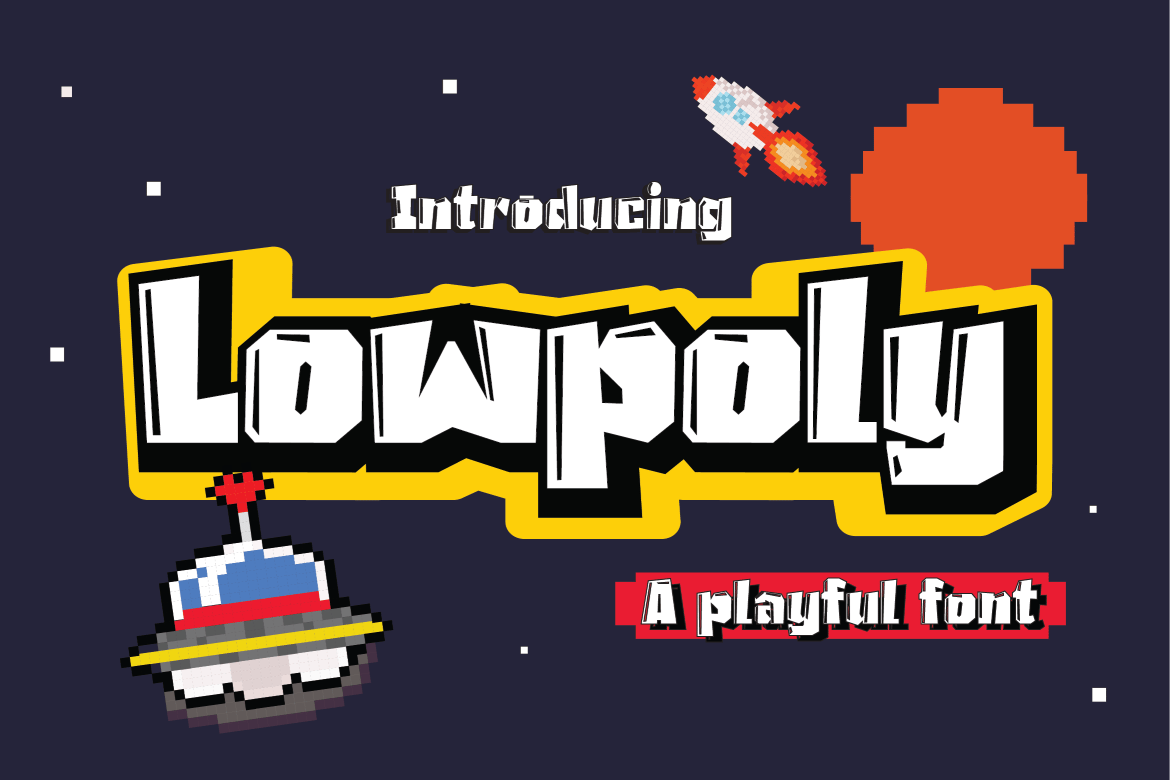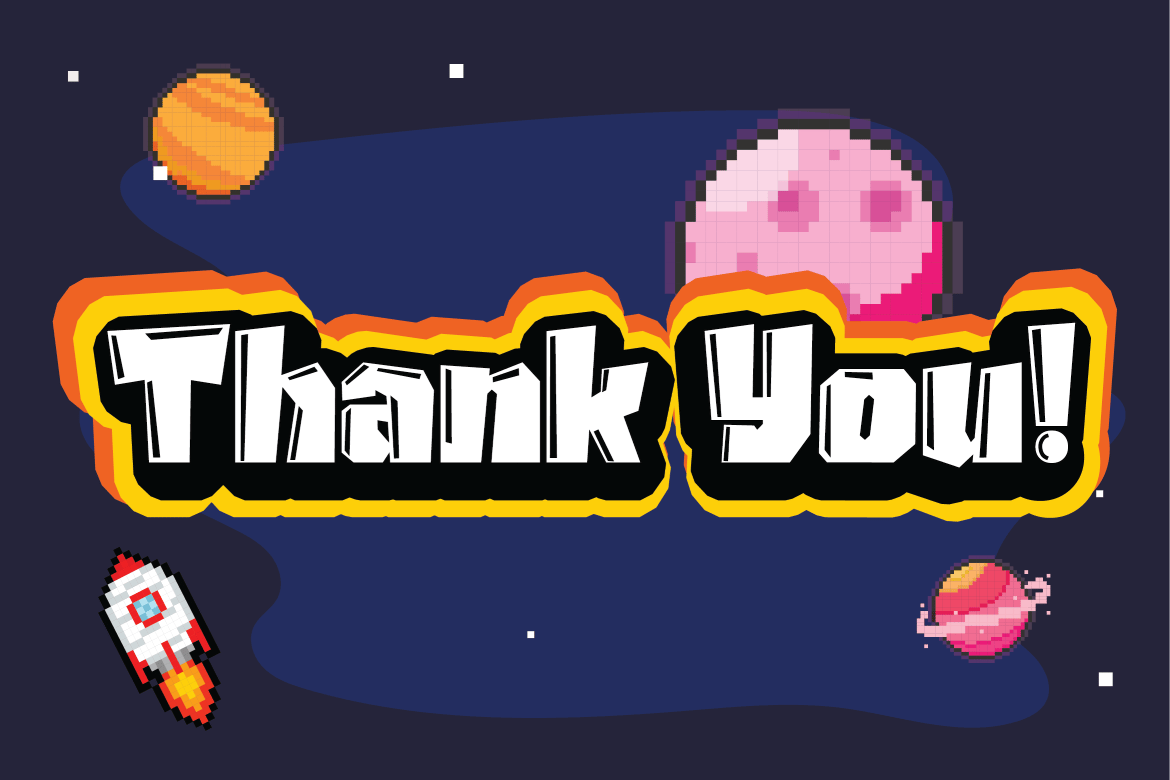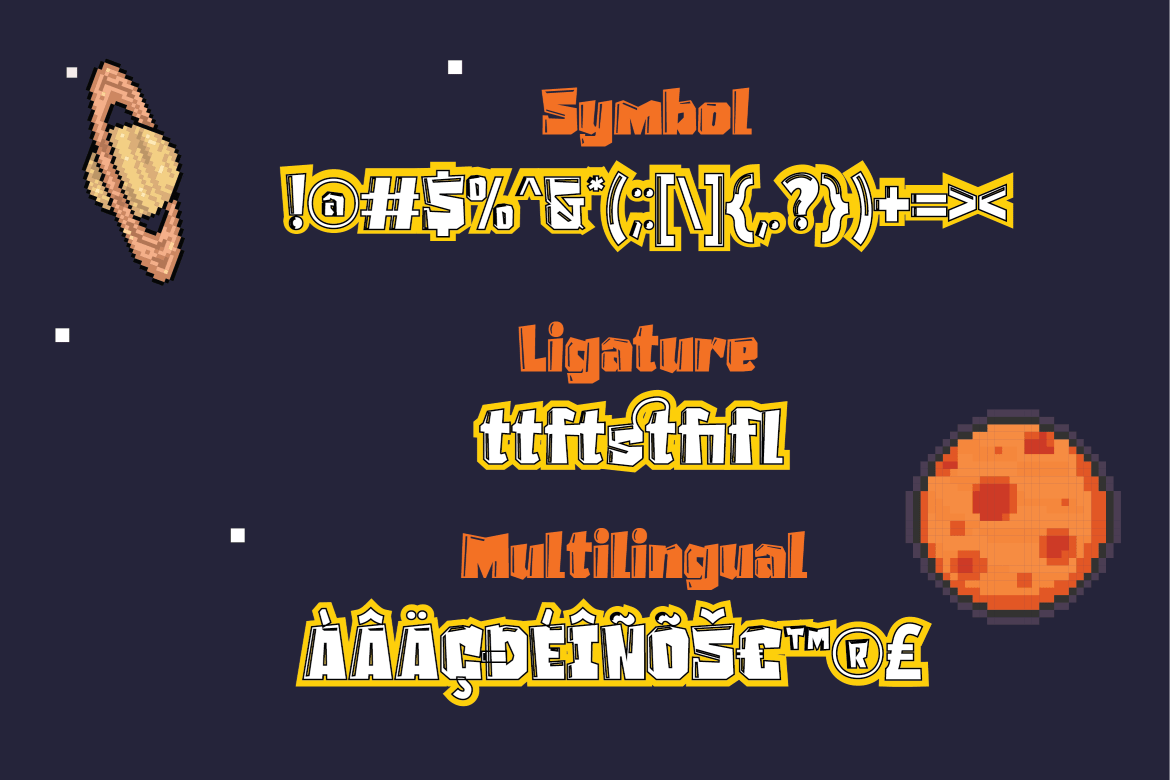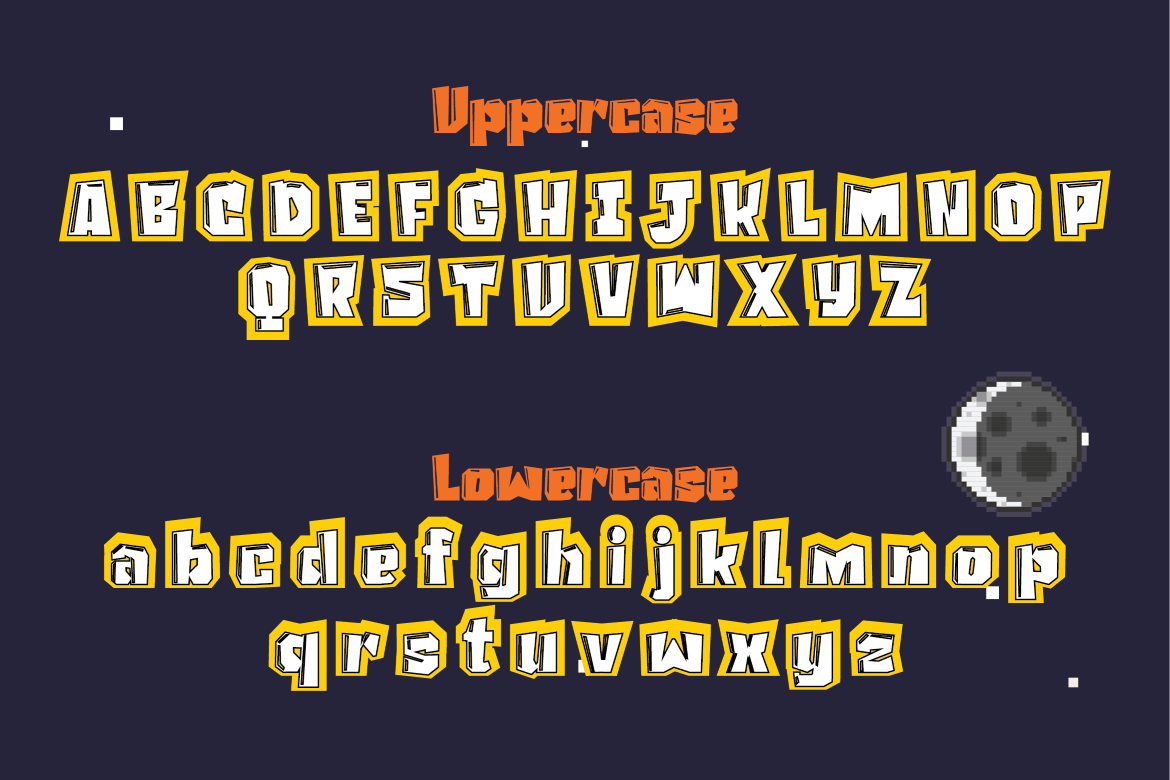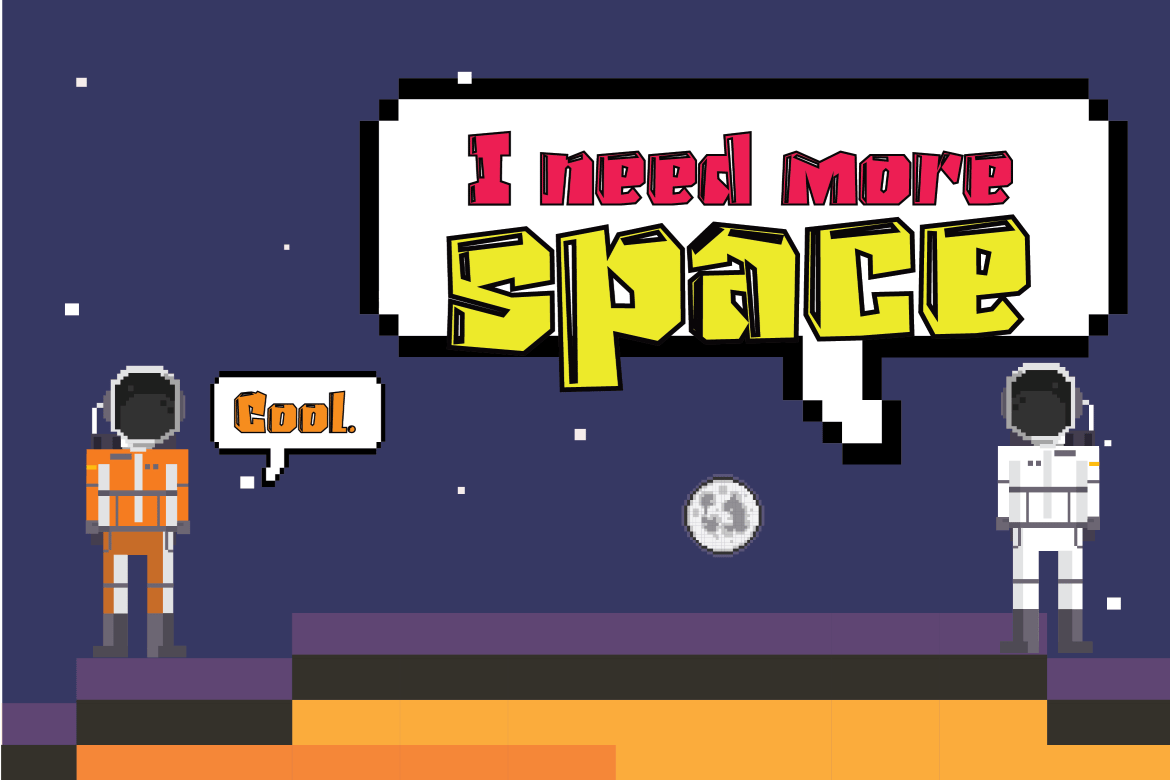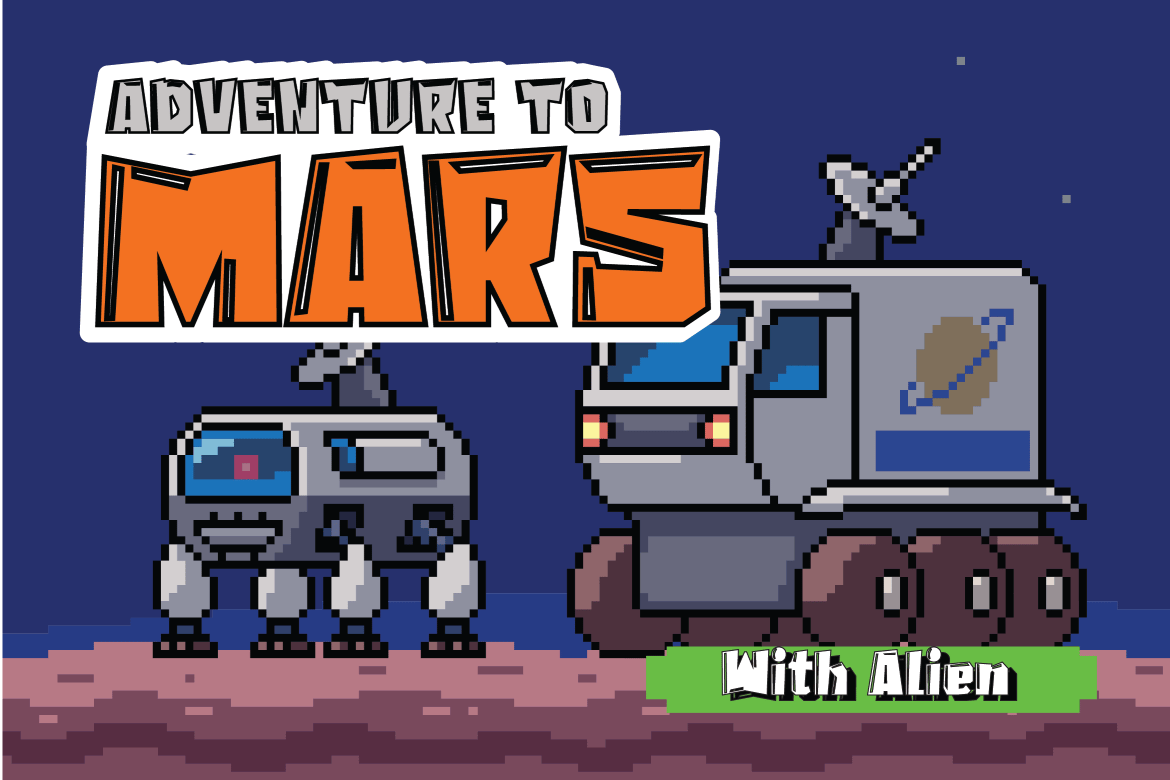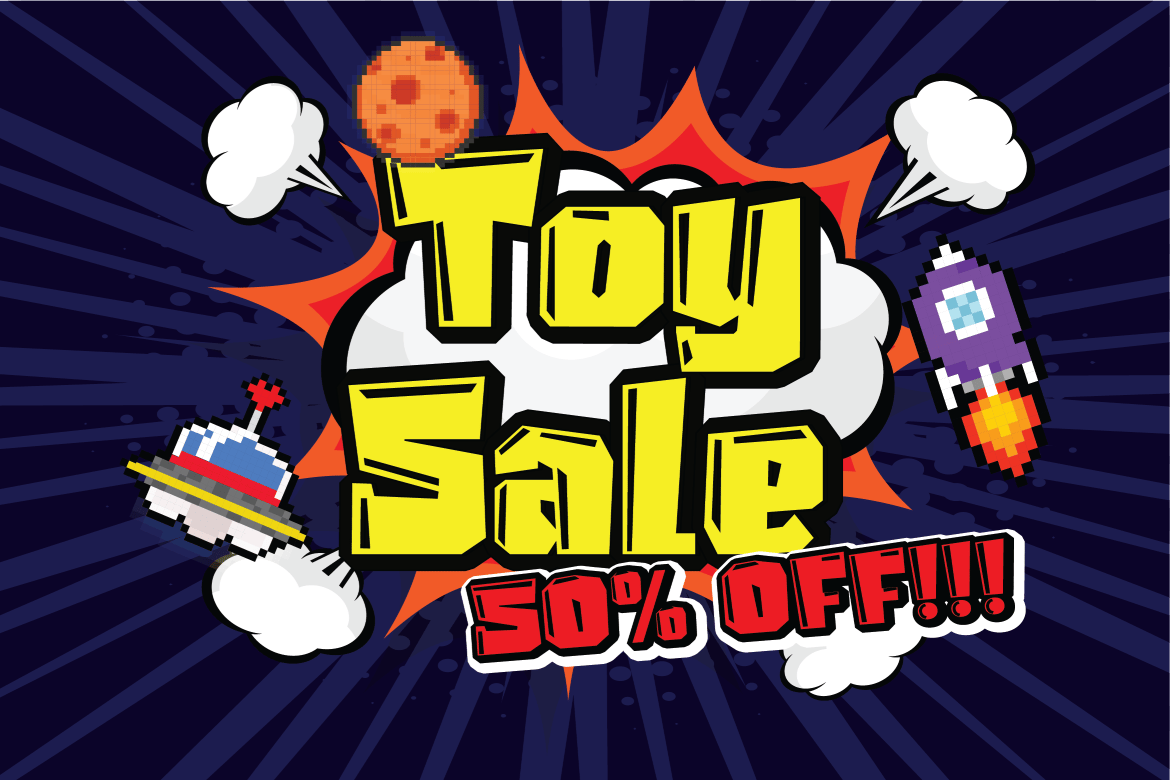
Whether you’re designing an awesome new video game or want to set up a top-notch playroom, it’s essential to get the players hyped. Believe it or not, a great font can set the perfect tone.
Introducing Lowpoly – A Playful Font.
- Multilingual & Ligature Support
- Full sets of Punctuation and Numerals